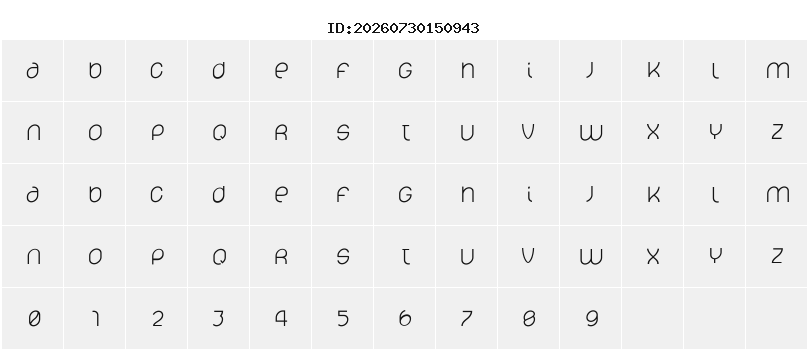
• Font Name: lelim Light
• Full Font Name: lelim Light
• Designer: Stefan Motzigemba
About lelim Light.ttf
lelim Light.ttf is a modern, elegant sans-serif font designed for ultimate readability and visual harmony. Perfect for branding, headlines, web design, and print materials.